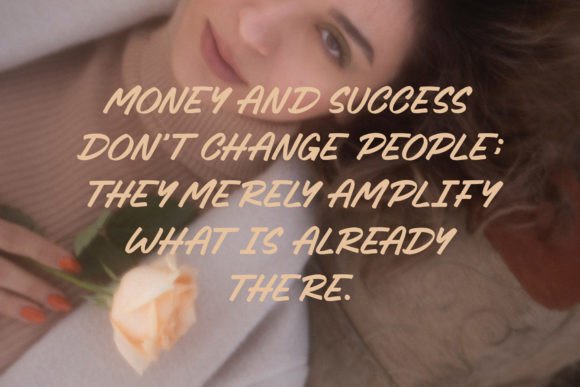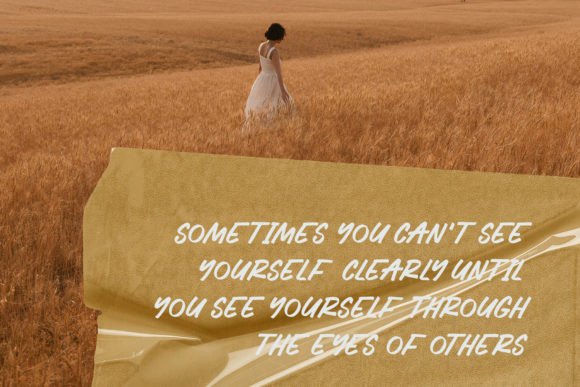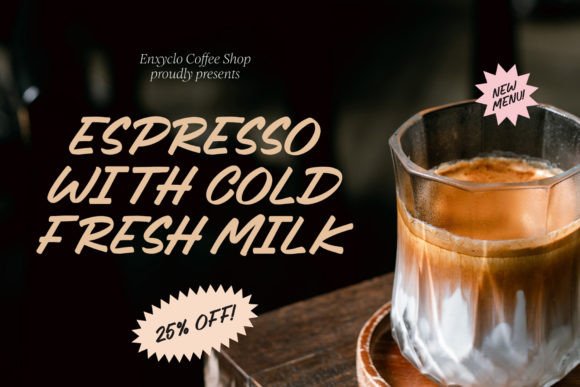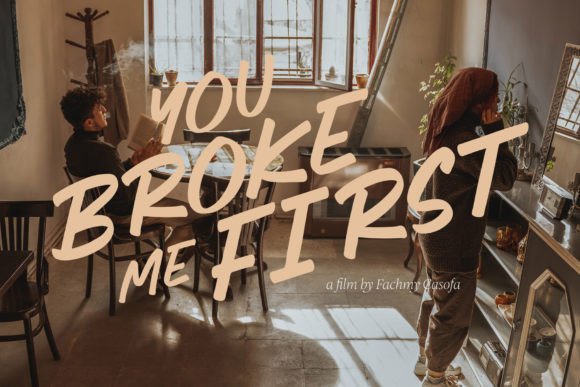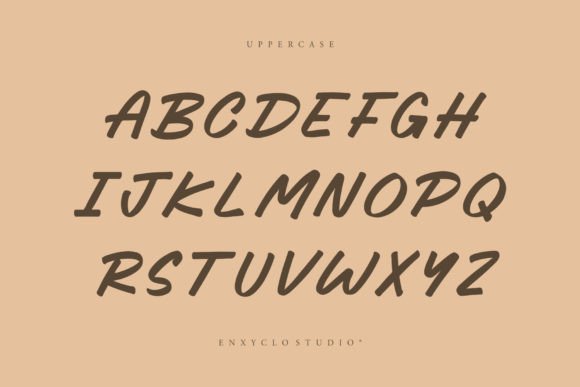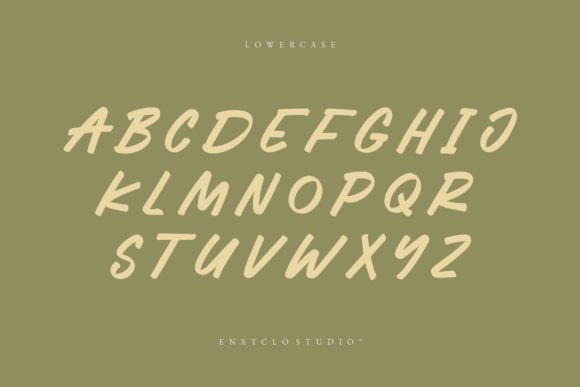
The Perfect Font to Make Your Creations Shine
Do you remember that moment when a spark of creativity hits you, and you can’t wait to bring your idea to life? The rush of excitement, the thrill of the unknown, and the anticipation of seeing your vision take shape. For designers, this feeling is a daily occurrence, and we’re always on the lookout for tools that can help us elevate our work. That’s where the Bovage Toiqora Font comes in – a marker style display font that’s designed to take your creative ideas to the next level.
With its versatility and unique charm, the Bovage Toiqora Font is an asset that every designer should have in their library. Whether you’re working on a wedding invitation, a billboard, or a logo, this font has the potential to make your project stand out from the rest. Its magic lies in its ability to be used in large point sizes without losing its charm in smaller sizes, making it the perfect addition to any design project.
Bovage Toiqora Font Key Features
• Font Family: Bovage Toiqora
• Character Set: Supports Latin, Cyrillic, Greek, and Extended Latin character sets
• Unique Characteristics: Bovage Toiqora features a unique blend of modern and vintage elements, with intricate details and subtle texture, making it suitable for a wide range of design applications, from fashion to editorial content.
Bovage Toiqora Font Review
Overall, I’m quite impressed with the Bovage Toiqora font. It has a unique, elegant aesthetic that can add a touch of sophistication to any design project. ✨ The font’s clean lines and subtle flair make it perfect for titles, headings, and even body text in certain contexts.
The font’s versatility is one of its strongest suits. It can be used for both formal and informal designs, making it a great addition to any designer’s toolkit. ✨ Additionally, the font’s readability is excellent, even at smaller font sizes.
However, there are some limitations to consider. ⚠️ The font may not be suitable for designs that require a more playful or bold tone. Additionally, the font’s nuances may be lost when used at very small sizes or in low-resolution contexts.
Another potential issue is the font’s weight range. ⚠️ While the font offers several weights, some users may find the range to be limited compared to other fonts on the market.
• Unique, elegant aesthetic
• Excellent readability
• Highly versatile
• Supports multiple languages
• Several weights available
Overall, I’d give the Bovage Toiqora font 4 out of 5 stars. It’s a great addition to any designer’s toolkit, but may not be suitable for every project.
To get the most out of the Bovage Toiqora Font, try using it in combination with other creative elements, such as bold textures and vibrant colors. You can also experiment with different font sizes and styles to create a unique visual effect.
The Bovage Toiqora Font is well-suited for use in creative and artistic projects, such as graphic design, typography, and digital art. It’s also a great choice for use in branding and marketing materials, such as logos and business cards.
Alternative Fonts to Bovage Toiqora
Great Vibes is a beautiful, modern calligraphy font. It’s perfect for use in branding, invitations, and other design projects that require a touch of elegance. Great Vibes is more refined and elegant compared to Bovage Toiqora, which has a more playful and quirky feel.
Carolyna Pro is a high-end, luxurious font that’s ideal for use in premium branding, packaging, and advertising. It’s more sophisticated and elegant than Bovage Toiqora, with a more subtle flair. Carolyna Pro is perfect for designers who want to create a high-end look without being too flashy.
Alex Brush is a beautiful, handwritten font that’s perfect for use in creative projects such as invitations, quotes, and social media graphics. It’s more delicate and feminine compared to Bovage Toiqora, which has a more rustic and playful feel. Alex Brush is ideal for designers who want to add a touch of whimsy to their projects.
Q: What is the recommended font size for optimal readability with Bovage Toiqora?
The recommended font size for optimal readability with Bovage Toiqora is between 12pt and 18pt. This range allows the font to display its unique characteristics while maintaining legibility.